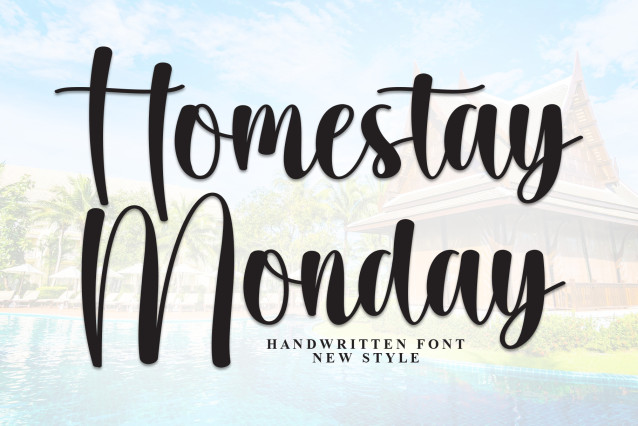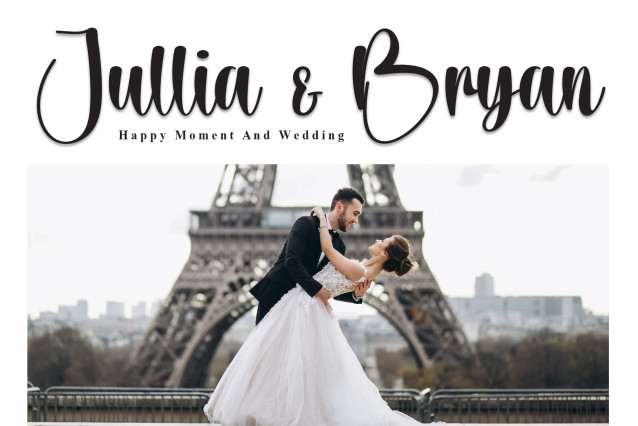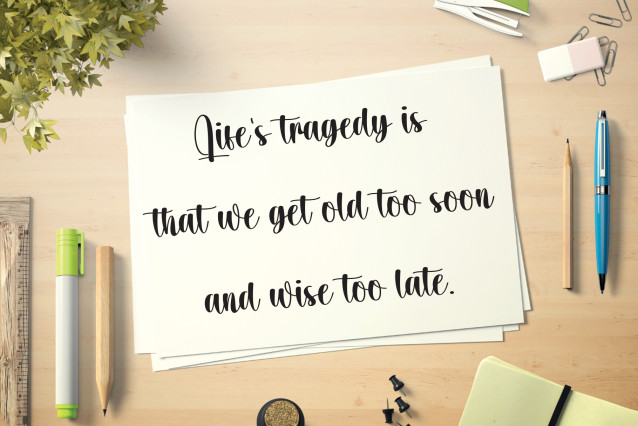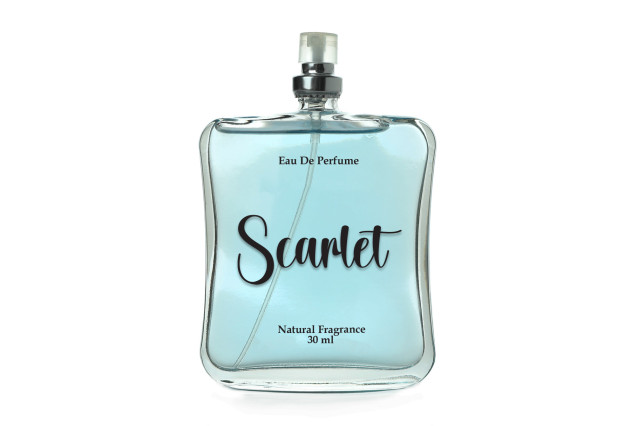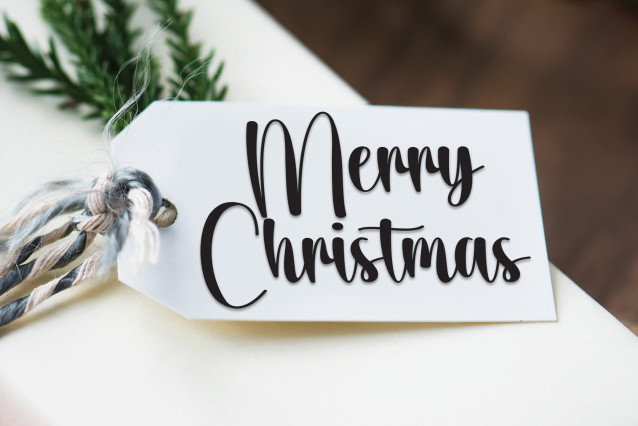
Homestay Monday Script Font
Homestay Monday Script Font is a playful, handwritten font that adds a fun and personal touch to your text. Its lively, casual style makes your words feel warm and inviting, like a friendly note from a good friend.